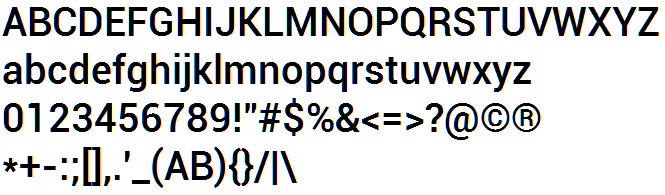
I have read about “hinting” , instructions embedded in a font on how to modify a glyph to look better on low-resolution displays.
I downloaded the Roboto font which should be hinted: https://github.com/google/roboto/tree/master/hinted
But as you can see, especially size 12 looks ugly compared to Arial.
What’s wrong?
Open a glyph in the glyph edit window and look at the top left intersection of the rulers. If there is a capital H there, the glyph is hinted. If Robert lacks hinting, the H will not be there.
I found this note at the bottom of the download page:
This directory contains hinted TrueType outlines based on specific and sometimes older versions of the fonts. The hints are not generated from the sources.
That might explain why the hinting is not very good.
There are two variations of Roboto I have seen. One as you have shown as Version 2.00+ doesn’t have kerning. Another (available on Dafont - Roboto Font | dafont.com version 1.0 ) has kerning.
I’m not certain, but the Version 2 could be a web font wherein kerning has been removed. However, your file size (506kb) is 3 times larger than the version 1.0. Something else may be going on.
Well, Roboto version 1.0 looks little bit different, but still very ugly
See the size 12 (resized 4x) of both versions compared to Arial:
But I am not sure if kerning is what has influence to the bad look..
There are a lot of similarities but significant differences, with weight and letter width being obvious. Surprised Google would do an Arial/Helvetica-like design.
What is better on these samples?
Aparently, you don’t understand what I am talking about.
At first, I am talking about small sizes - namely 12 here. You have used something much bigger.
At second, I am talking about aliased version, black and white fonts.
Your samples use ClearType antialiasing, or another subpixel antialiasing, because blue and red strips are visible around letters.
"The limitations of today’s screen-based media impose many restrictions on web typography. Even if a designer understands these limitations, the large majority of typefaces available for web use were not designed for that purpose. Crafted with the same level of care as the rest of Font Bureau’s library, the Reading Edge™ (RE) series is a collection of web fonts that helps alleviate this tension between refined typography and the screen.
Every pixel counts.
The Reading Edge typefaces were designed from scratch specifically for small sizes on screen. Small type on the web faces problems that hinder onscreen readability. Details that are critical for legibility can be easily lost when reduced to sub-pixel sizes. Clarity is also sacrificed with low resolutions. Additional “hinting” data can be embedded in fonts, instructing how to bend each glyph to fit the pixel grid at different sizes, but hinting alone can’t guarantee legibility. The underlying design of each letterform is essential, especially in rendering environments like Mac OS X that ignore hinting data. Font Bureau’s RE typefaces do more than take these limitations into account. The RE fonts are carefully produced with the restrictions of web typography guiding each step of the process."
RE series fonts suffer the same problem as Roboto font:
I suppose their “hinting” does not care about the situaton, when anti-aliasing, greyscale or subpixel, are switched off.
So again, my original question was why Arial looks good in this situation, while Roboto or many other like Font Bureau Reading Edge fonts look ugly.